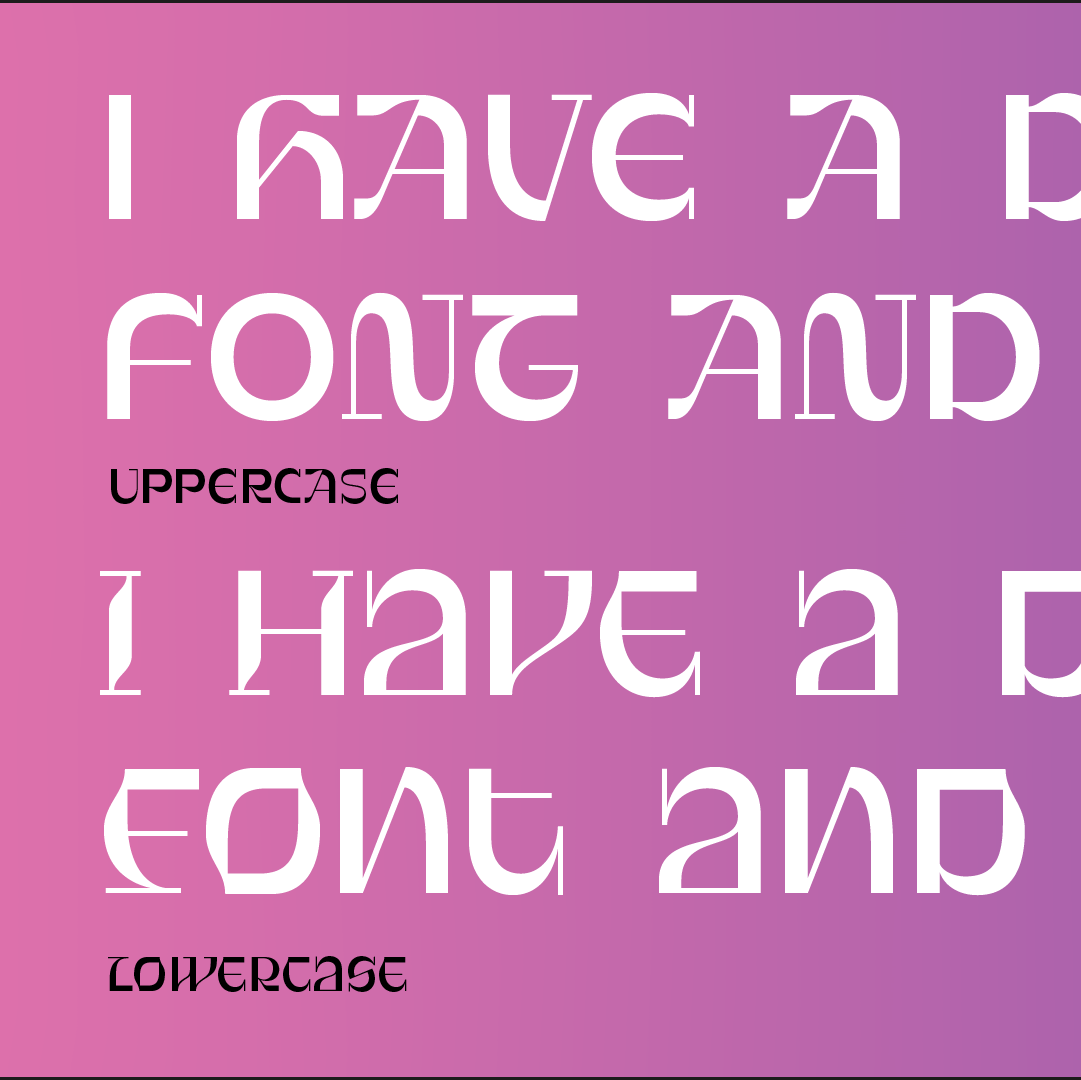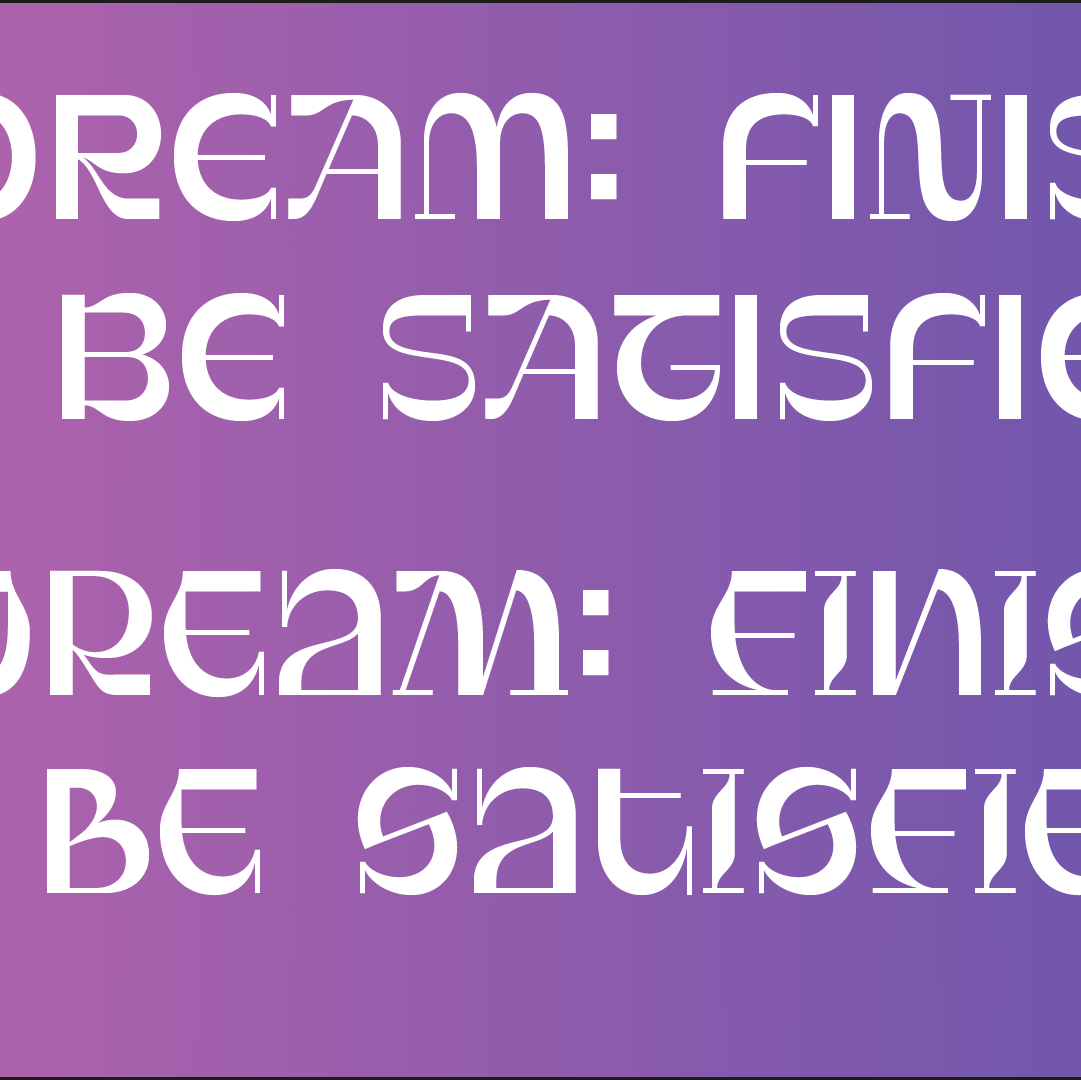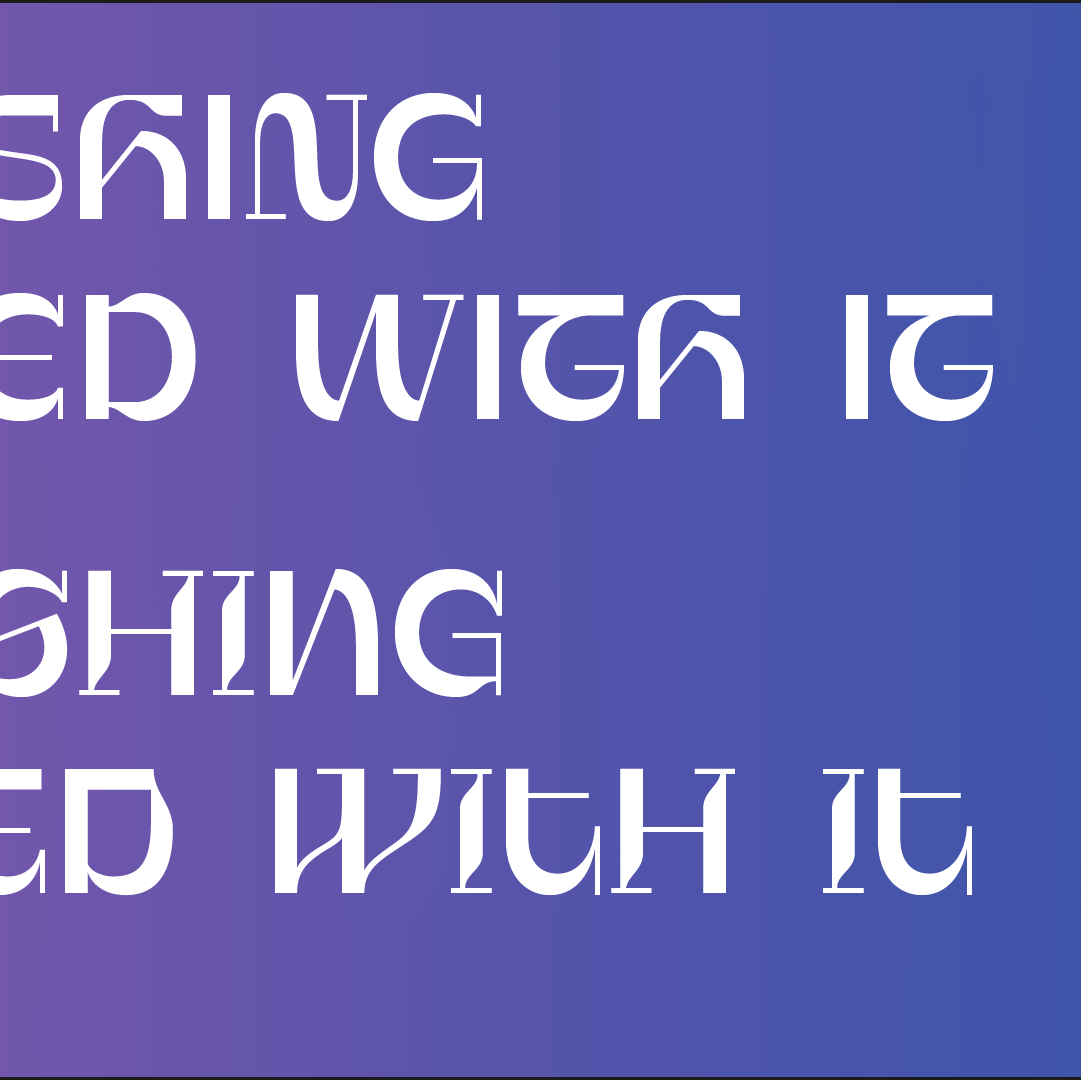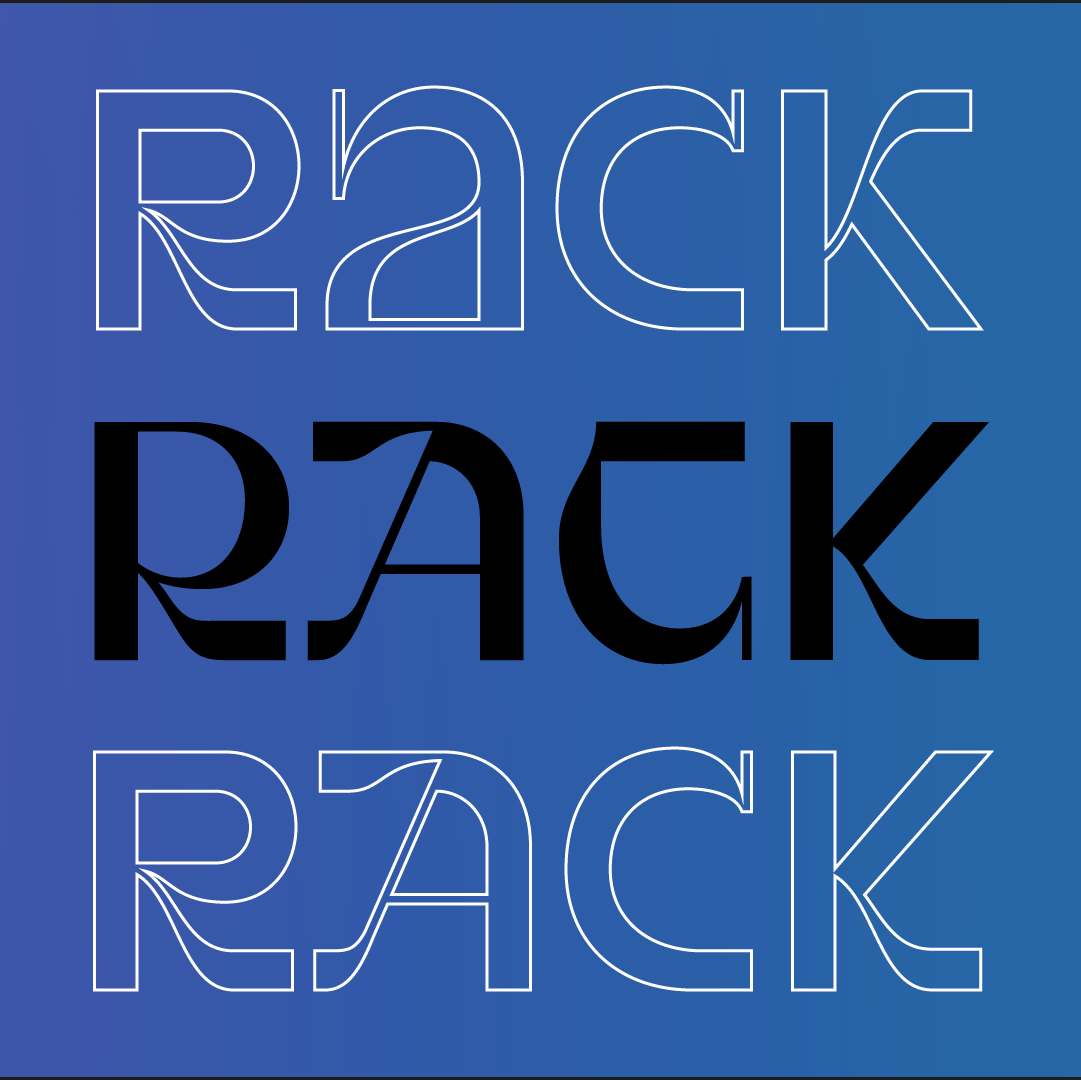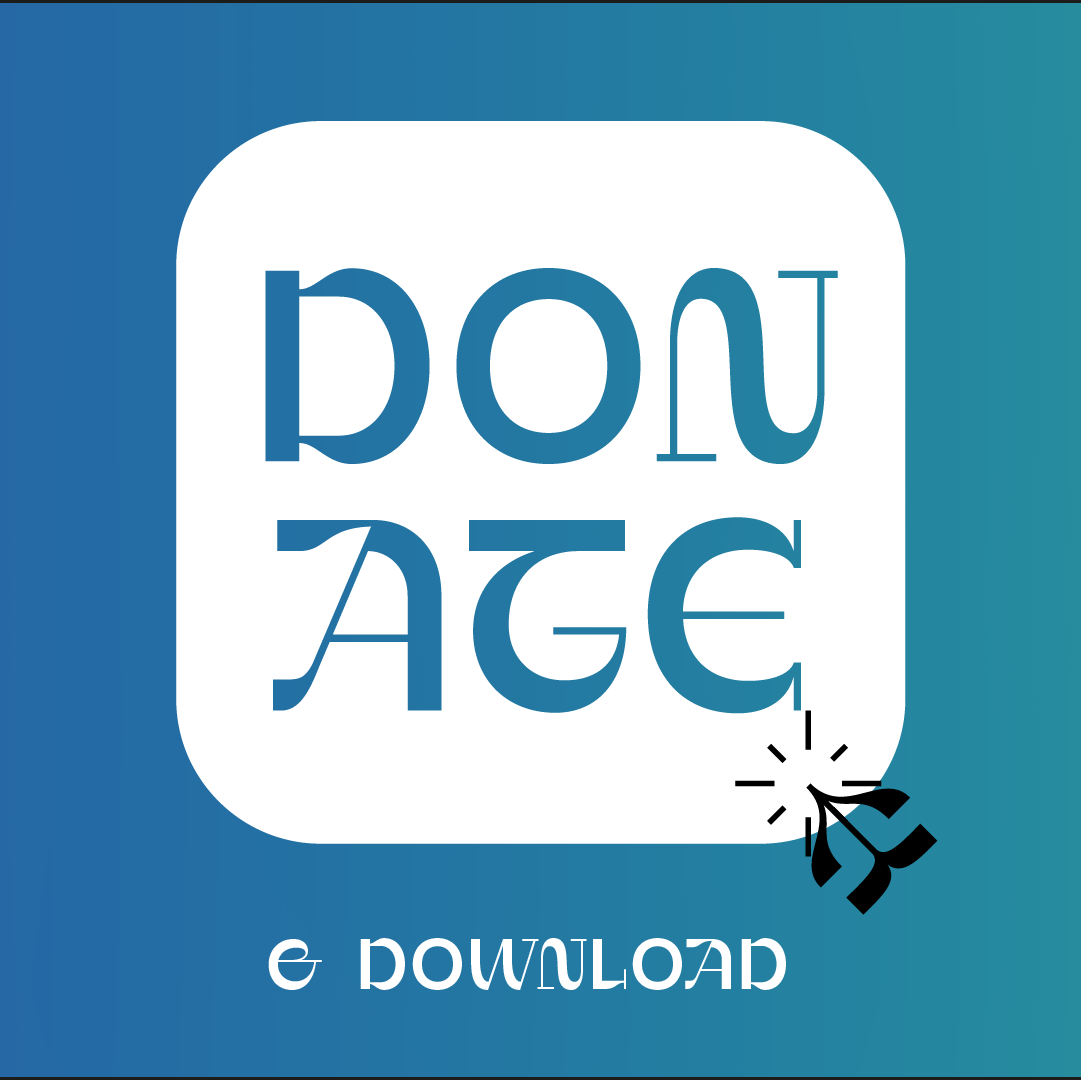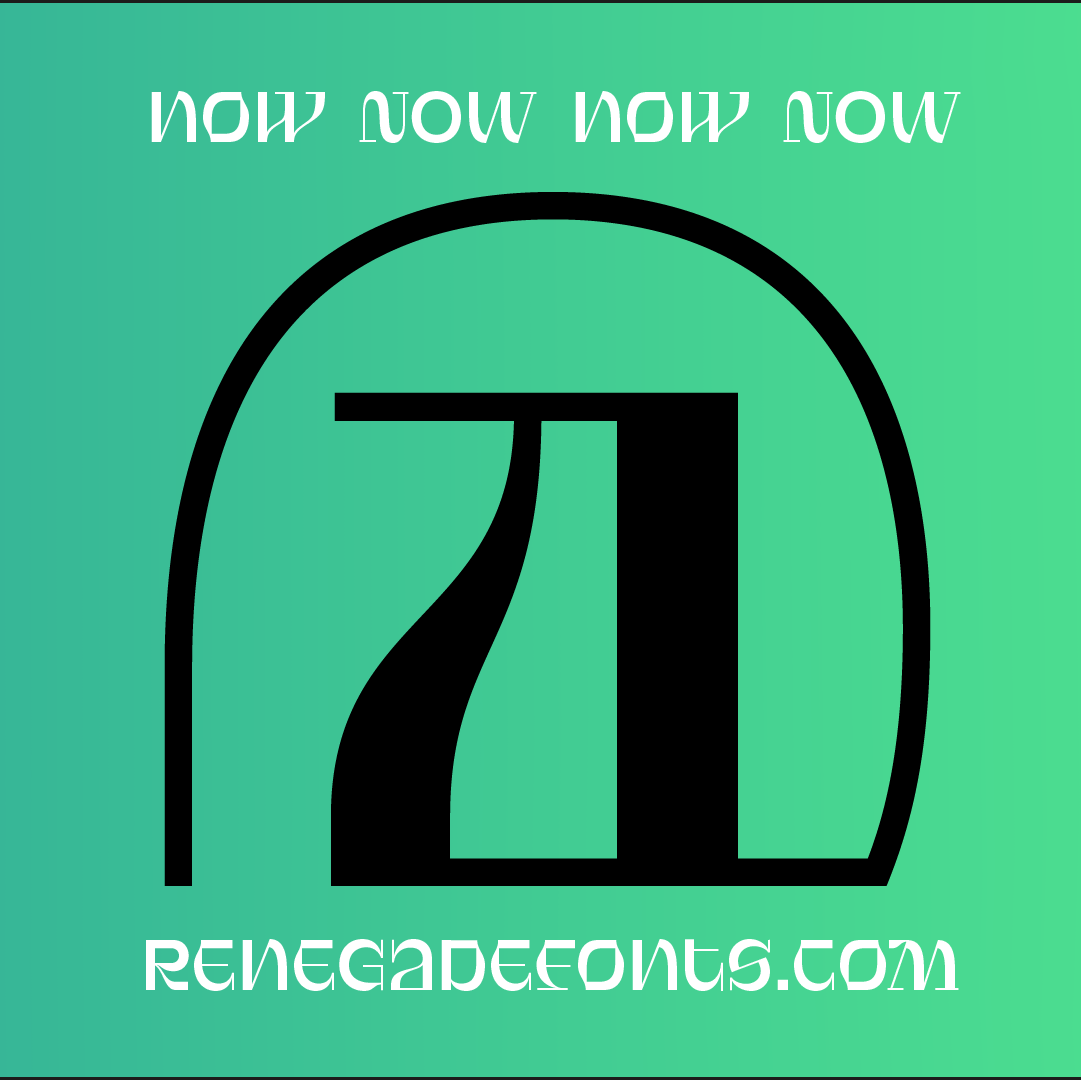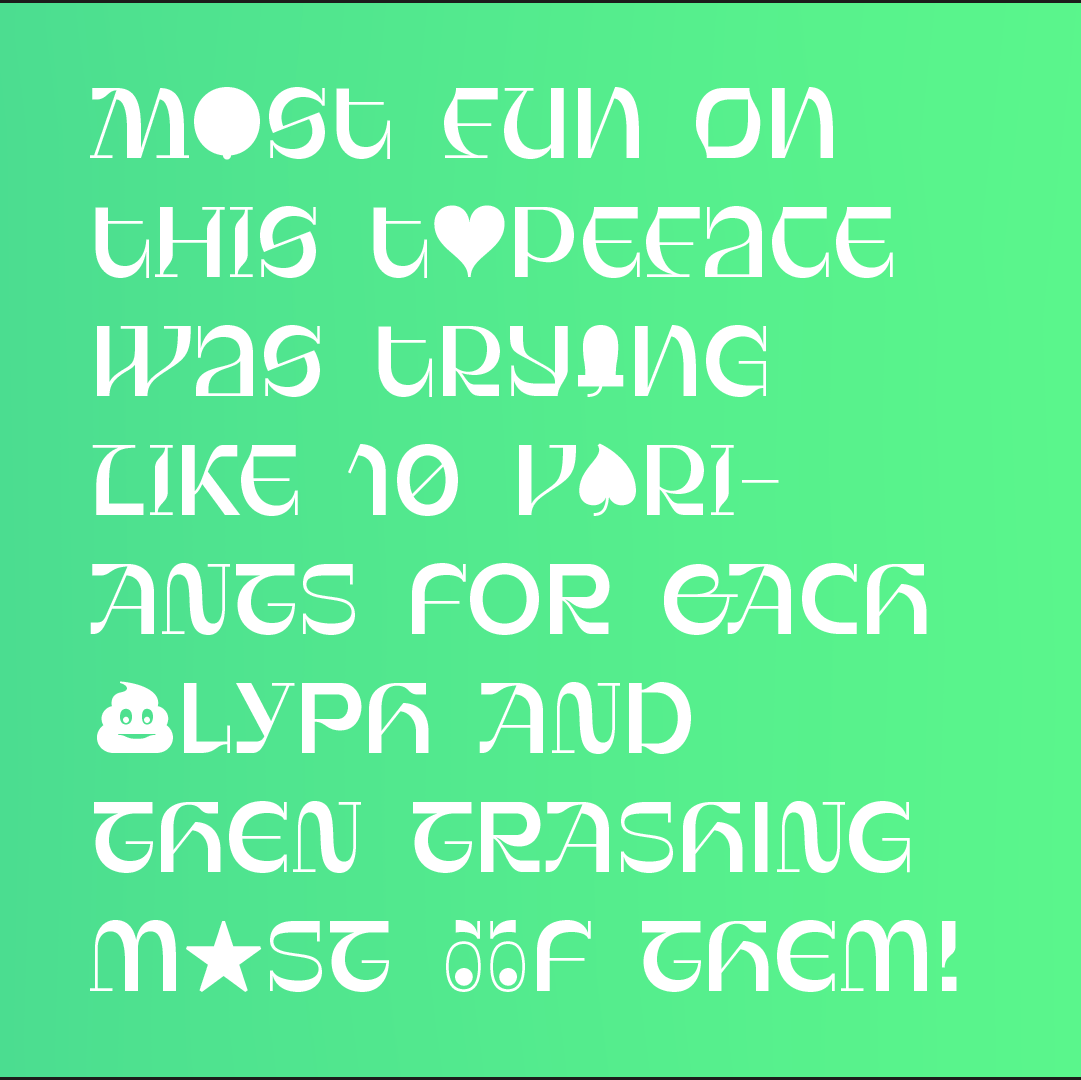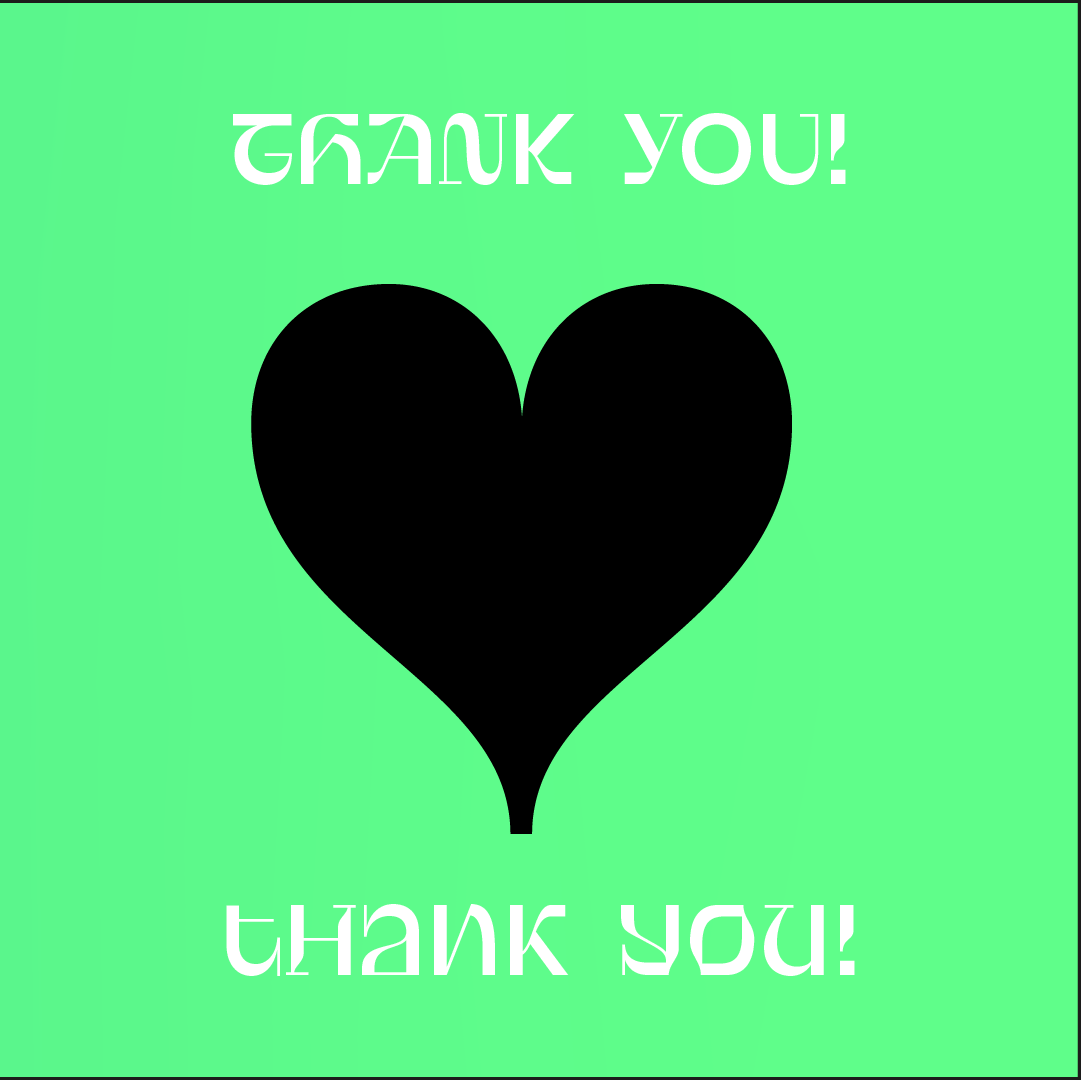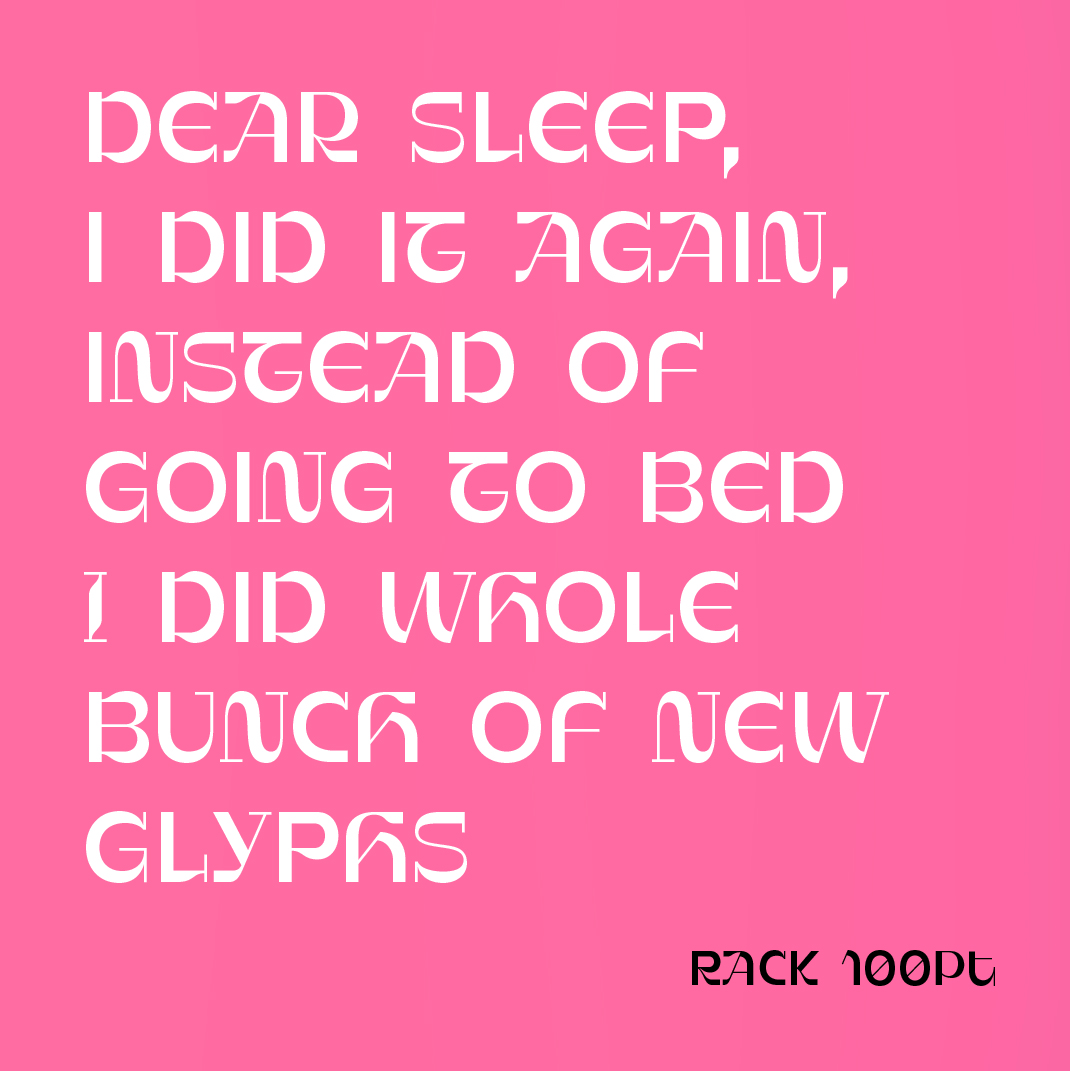
Rack
By Font Renegade
“Rack came to me one night before bedtime with no meaning, no sense to me. It just came and used me as a tool and I did my best. Nothing more, nothing less. And here’s the result of my skill and knowledge at this point. I enjoyed working on it and it was really fun designing all the different shapes. Tens of them ended up in trash—too weird, too simple, too complicated, you name it.” — Designer Jan Charvát
Rack is unicase, but consists of two different alphabets, both of them fully Latin-extended character sets. You can even mix the cases as you like. There are some emojis like German card symbols, money, eyes or pile of poo. With the eyes and poo you can even choose which way they will look through stylistic set.
Rack
Designer: Jan Charvát
Foundry: Font Renegade
Release: 2020
Styles: two different Latin-extended character sets